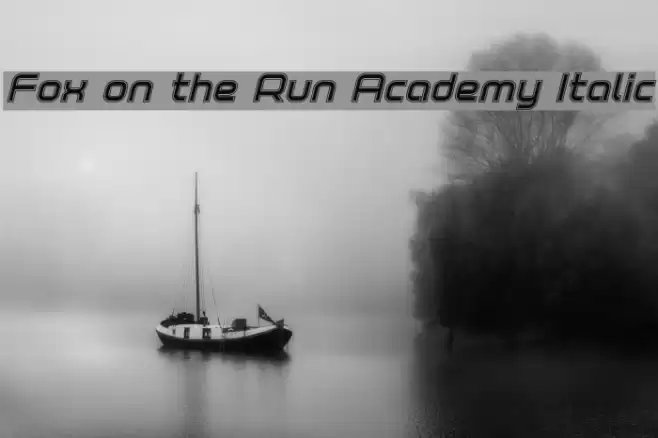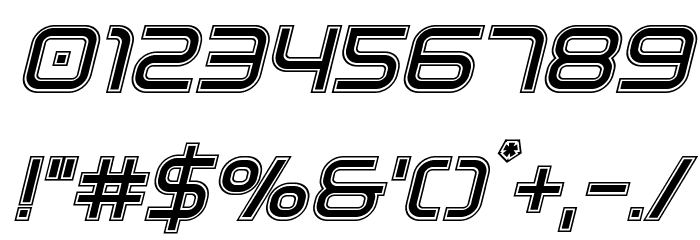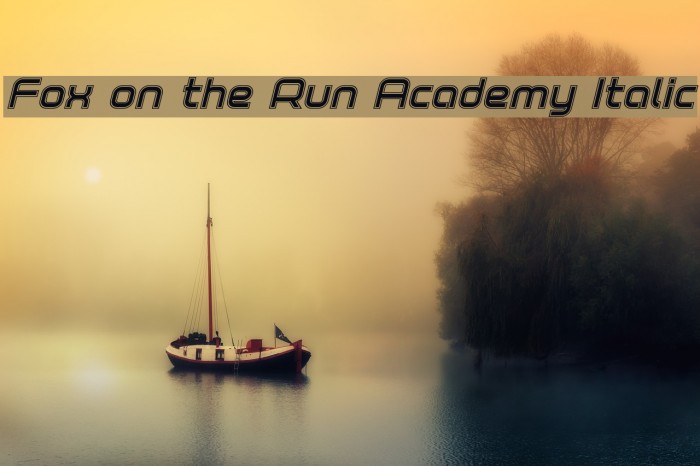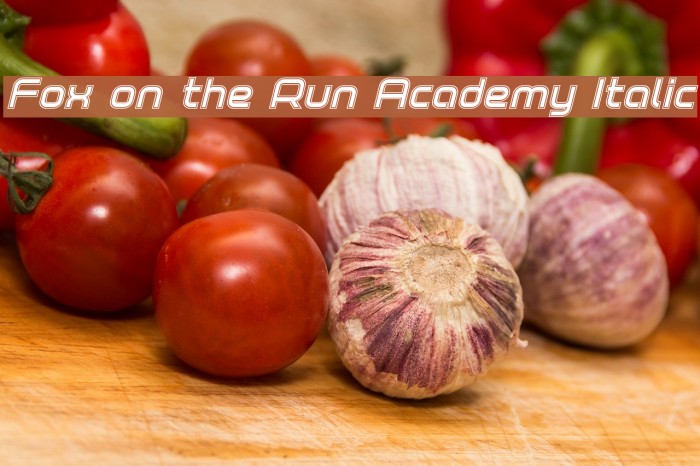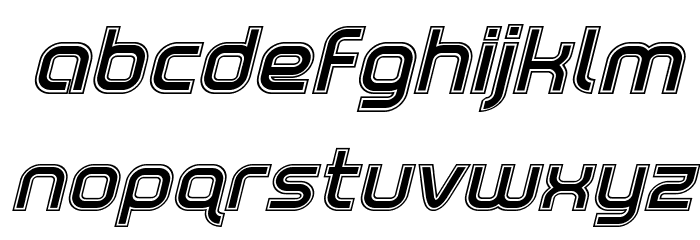
Fox on the Run Academy Italic Font
Fox on the Run Academy Italic Description
This font features a dynamic and modern design with a double-line outline that gives it a futuristic and sporty appearance. The characters are italicized, adding a sense of motion and speed. The uppercase and lowercase letters maintain a consistent style, with rounded edges and a slightly condensed form. The numerals and special characters follow the same aesthetic, ensuring uniformity across all glyphs. The font's unique outline effect makes it stand out, making it ideal for eye-catching designs.
A modern, italicized font with a double-line outline, exuding a sporty and futuristic vibe from Uncategorized fonts.
- Proposed Projects: Ideal for sports branding, futuristic designs, automotive advertisements, and dynamic logo creation.